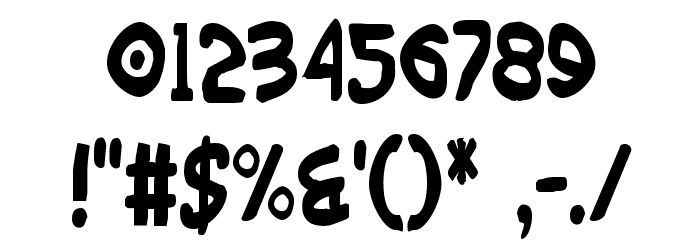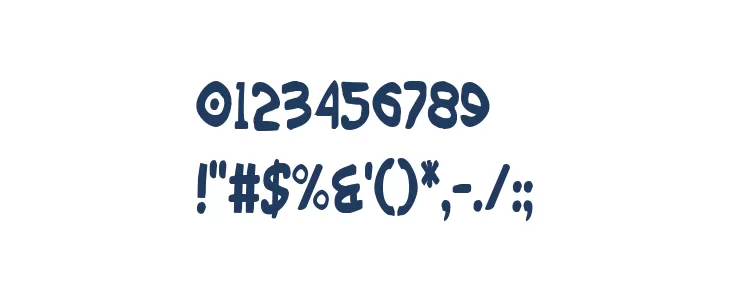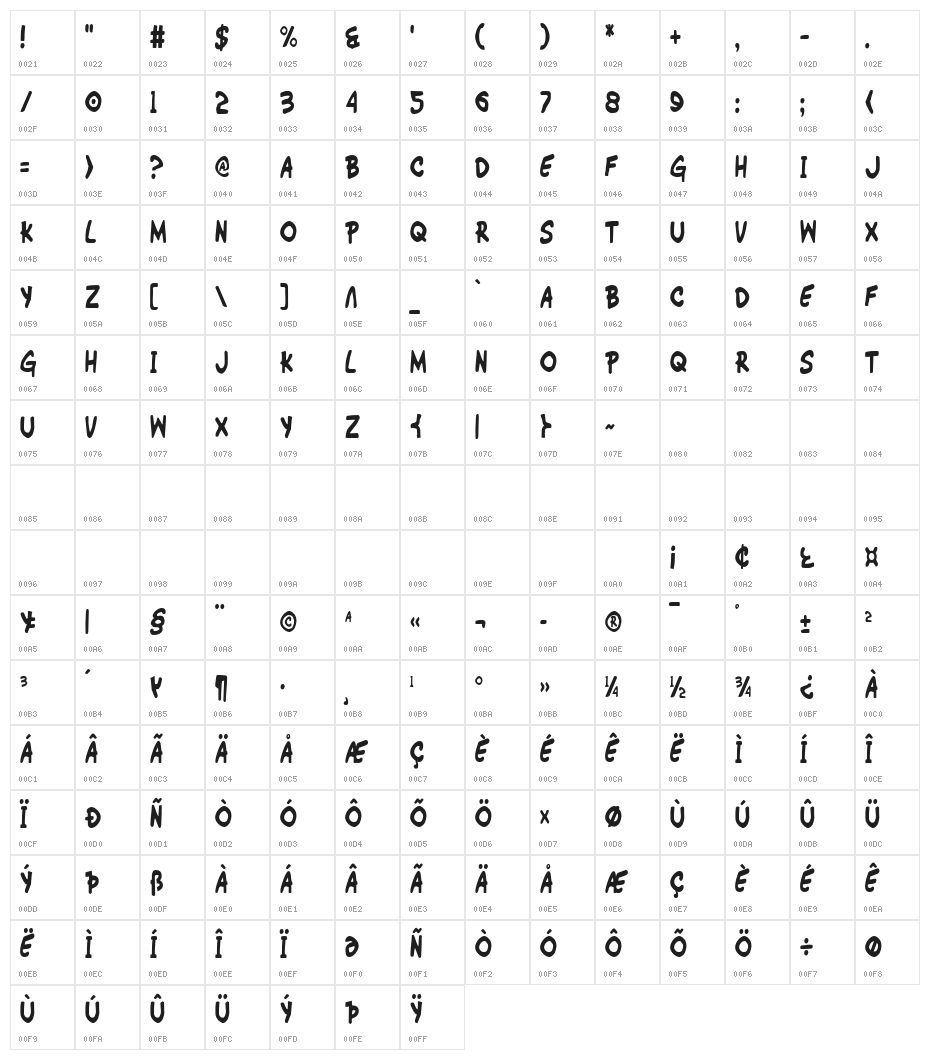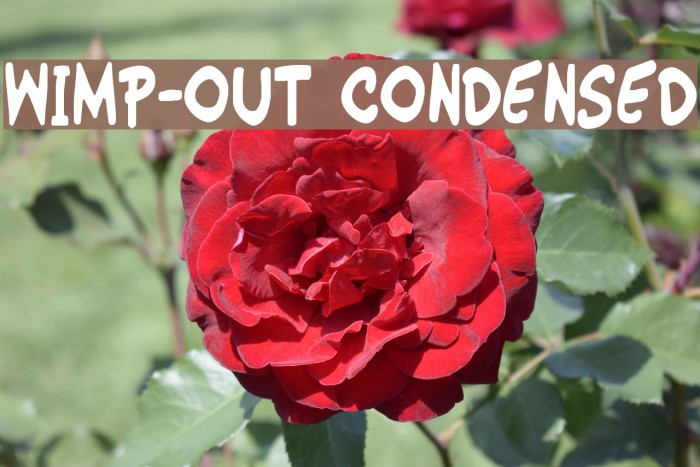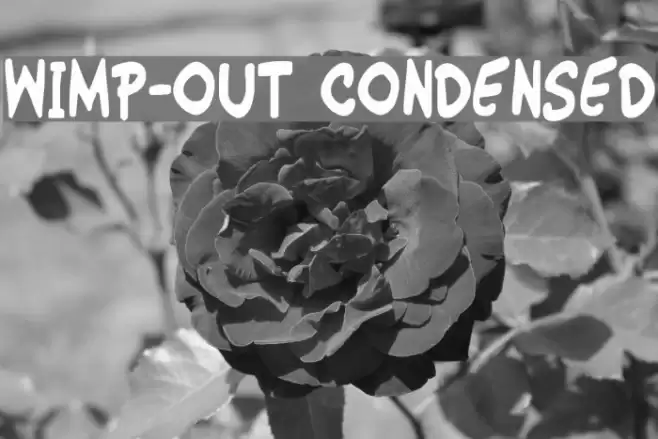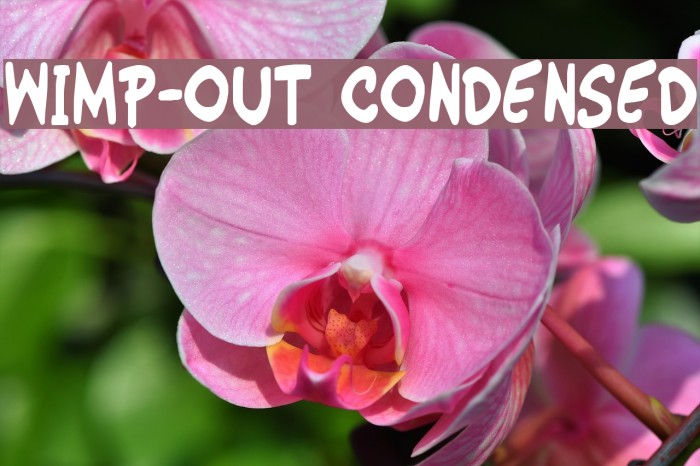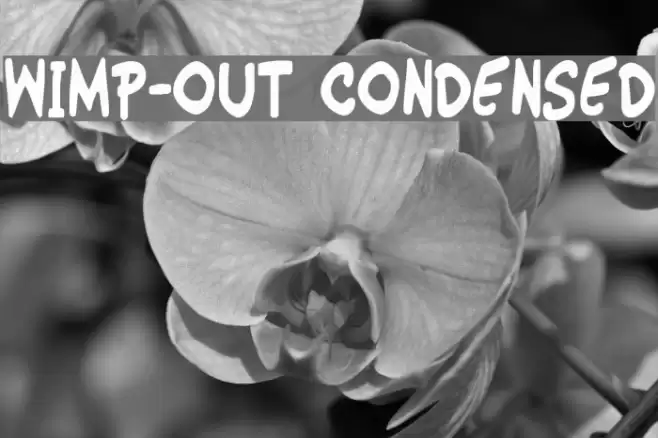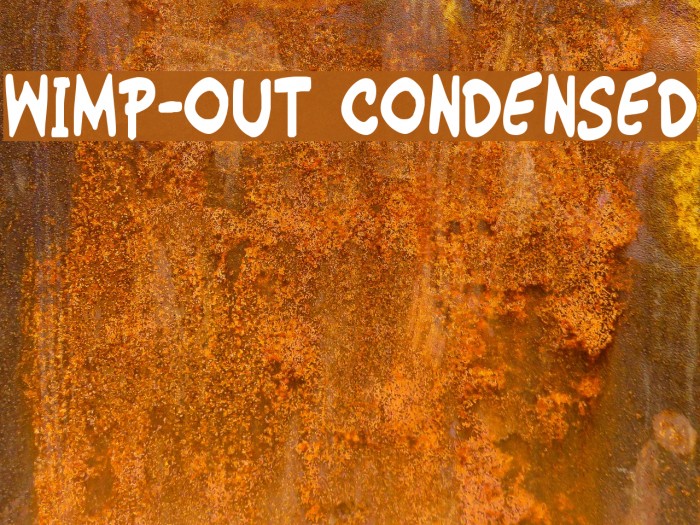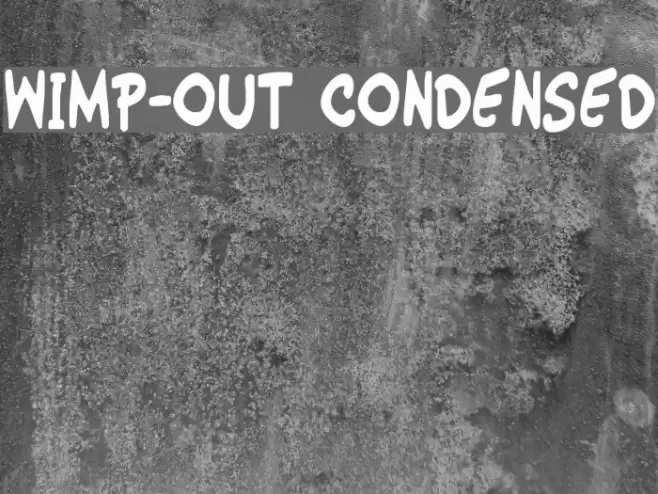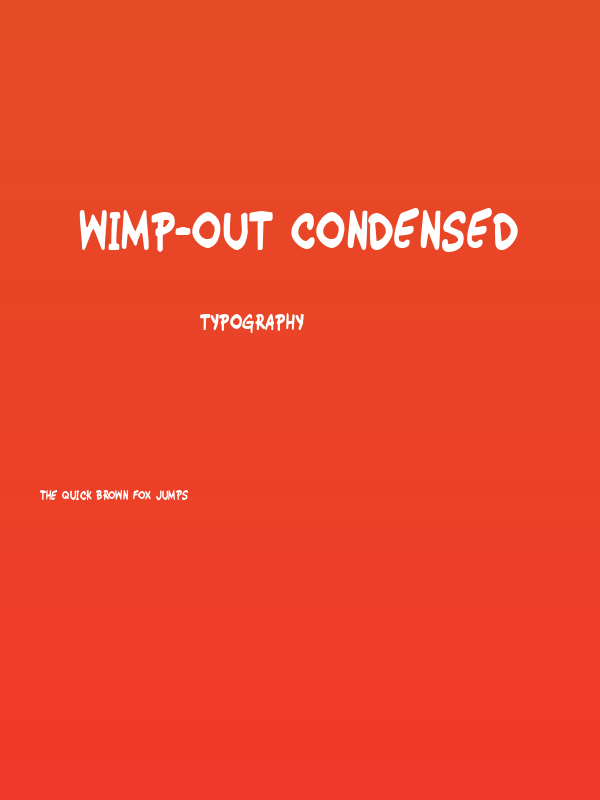
Wimp-Out Condensed Font
Wimp-Out Condensed Description
This font features a playful and bold style with a hand-drawn appearance. The letters are slightly irregular, giving it a casual and informal feel. The strokes are thick and rounded, contributing to its friendly and approachable look. The condensed nature of the font allows for efficient use of space, making it suitable for headlines or titles where a strong visual impact is desired. The characters are closely spaced, enhancing the compactness of the design. This font includes a full set of uppercase and lowercase letters, numerals, and a variety of special characters, ensuring versatility in different design contexts.
| Proposed Projects | Ideal for children's books, comic strips, playful branding, and eye-catching headlines. |